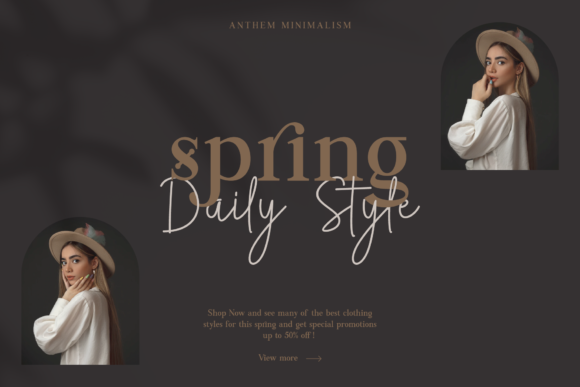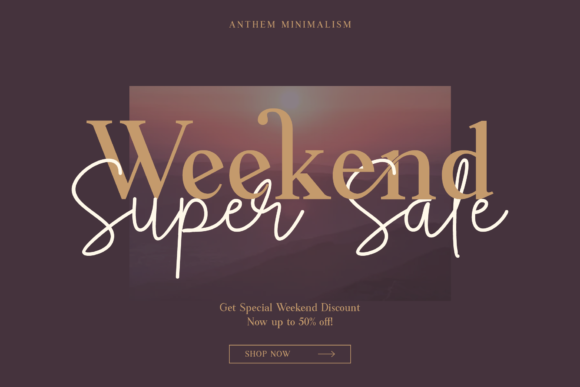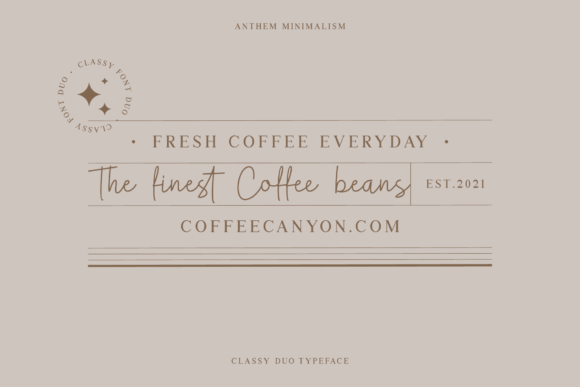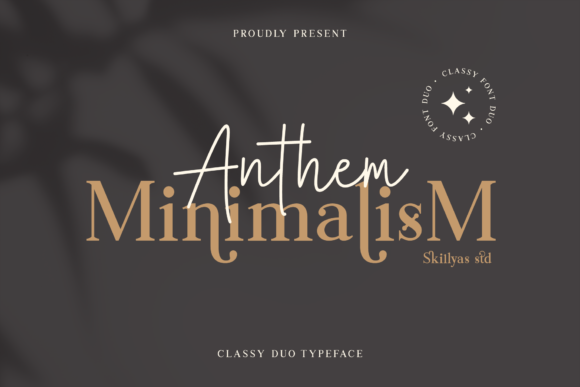
Introduction to Anthem Minimalism Duo Font
Anthem Minimalism Duo is a lovely font (serif and script).
It looks ravishing on wedding invitations, thank you cards, quotes, greeting cards, logos, business cards and every other design which needs a customized touch This font is PUA encoded which means you can access all of the glyphs and swashes with ease.